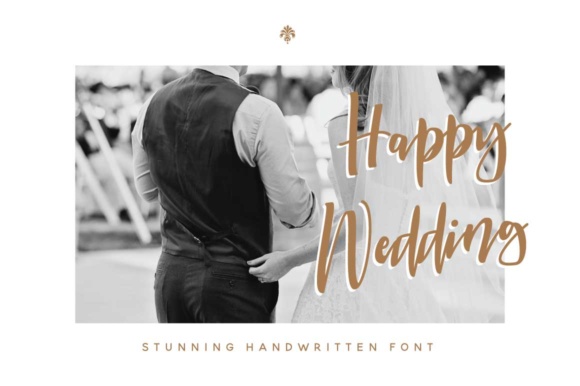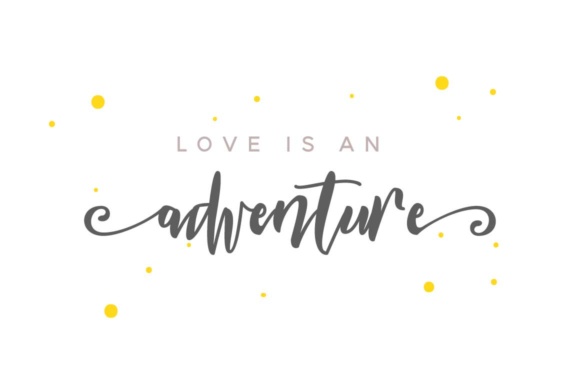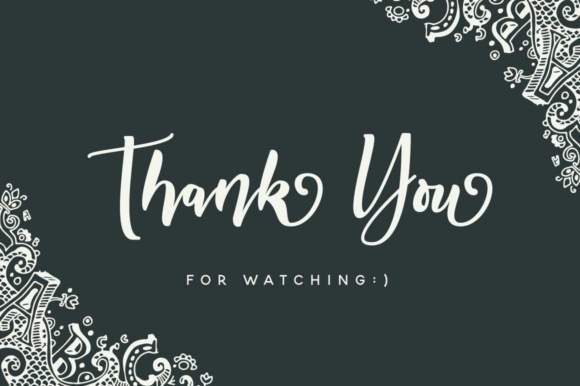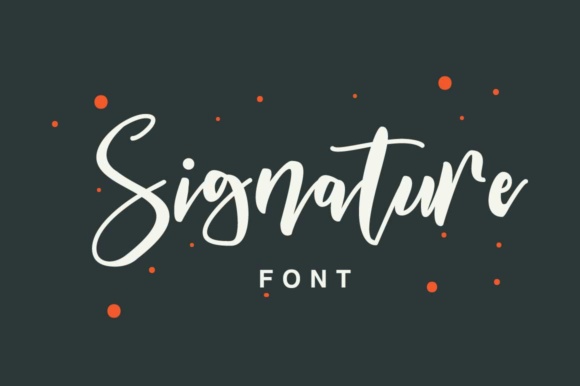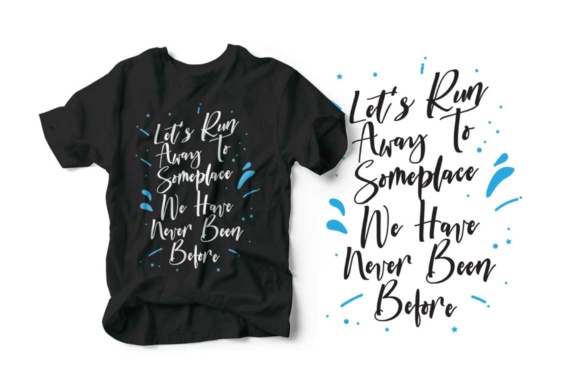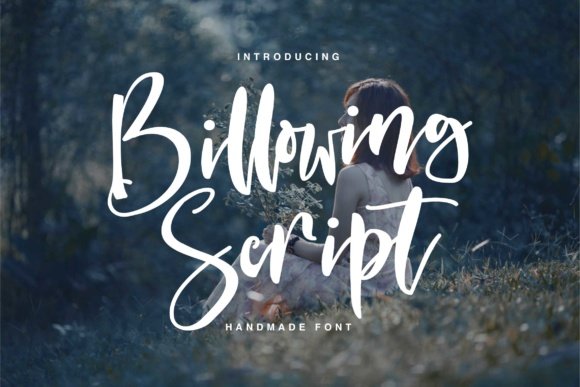
The Art of Elegant Typography: Introducing Billowing Script Font
There’s something magical about the first brush stroke of a new project, isn’t there? The blank page waiting to be filled with creativity, the possibilities endless. For designers, it’s a moment of pure joy, a chance to bring an idea to life. And what better way to add a touch of elegance to your design than with the perfect font?
Enter Billowing Script Font, a fresh handmade calligraphy font that combines the classic charm of copperplate typography with a modern twist. This beautiful font is perfect for designers looking to add a natural and personal touch to their work. Whether you’re creating branding for an apparel company, designing greeting cards, or working on a painting-inspired project, Billowing Script Font is the perfect choice.
With its unique blend of classic and contemporary styles, Billowing Script Font offers endless possibilities for designers. Mix and match the alternate characters to create a truly unique message that sets your design apart. And with its natural, handwritten feel, you’ll be sure to capture the attention of your audience.
- Unique Characteristics: Elegant, cursive script with flowing connections between letters, ideal for titles, headings, and creative typography
Designer Review: Billowing Script Font
First off, I want to say that Billowing Script Font has some amazing qualities that make it a joy to work with ✨. The font’s organic, handwritten feel is perfect for creating a sense of whimsy and personality in designs. The subtle imperfections and variations in letterforms give the font a unique, hand-crafted touch that’s sure to capture attention.
Another great aspect of Billowing Script Font is its versatility ✨. It’s suitable for a wide range of applications, from fashion and beauty branding to wedding invitations and children’s book illustrations. The font’s elegant, flowing lines make it perfect for creating beautiful typography that’s both visually appealing and easy to read.
However, there are some limitations to consider ⚠️. One of the main issues is that Billowing Script Font can be quite difficult to read at small font sizes. This may be a problem for designers who need to use the font in body text or for websites with limited screen real estate.
Another potential issue is the font’s lack of consistency in terms of letter spacing and capitalization ⚠️. While this can add to the font’s hand-crafted feel, it can also make it more challenging to use in certain situations.
- Unique, handwritten feel
- Organic, flowing lines
- Perfect for fashion, beauty, and children’s book applications
- Difficult to read at small font sizes
- Lack of consistency in letter spacing and capitalization
Billowing Script Font is ideal for creating elegant and sophisticated designs, such as:
- Branding and marketing materials (e.g. logos, business cards, etc.).
- Special occasion announcements (e.g. birthday, graduation, etc.).
Remember to experiment with different font sizes, colors, and styles to get the most out of Billowing Script Font.